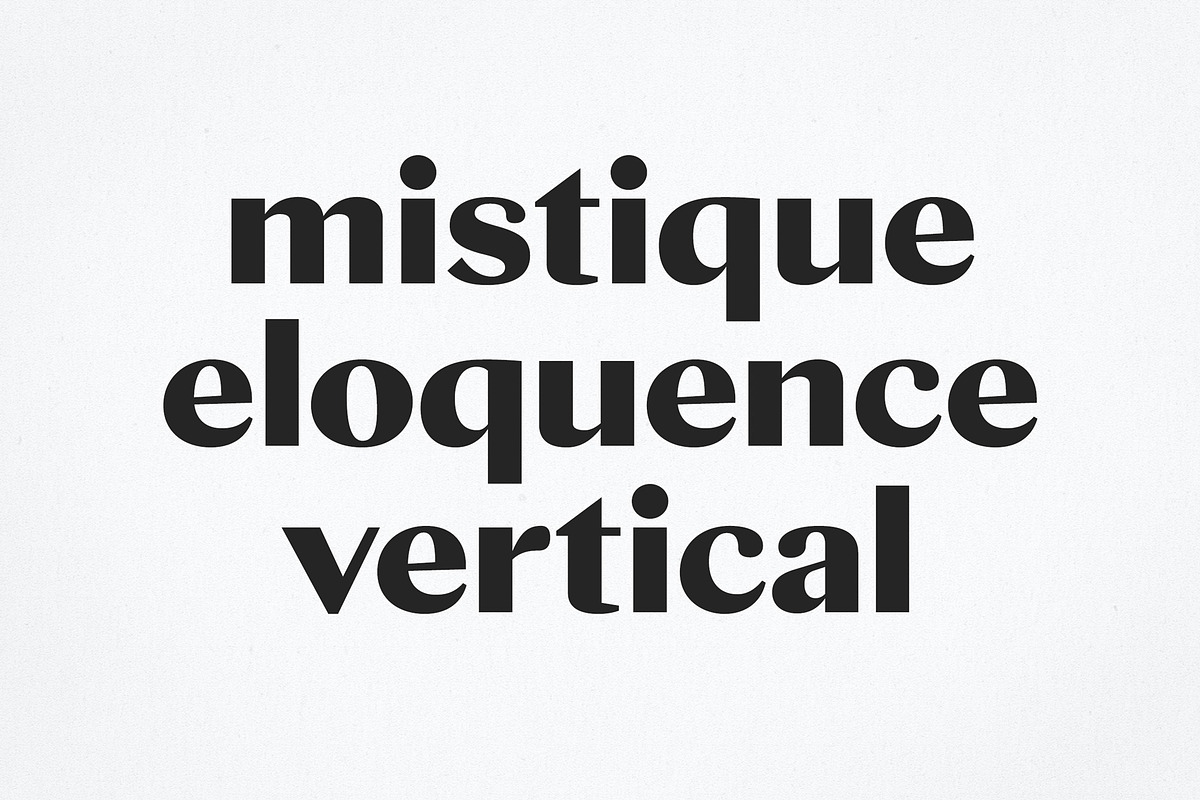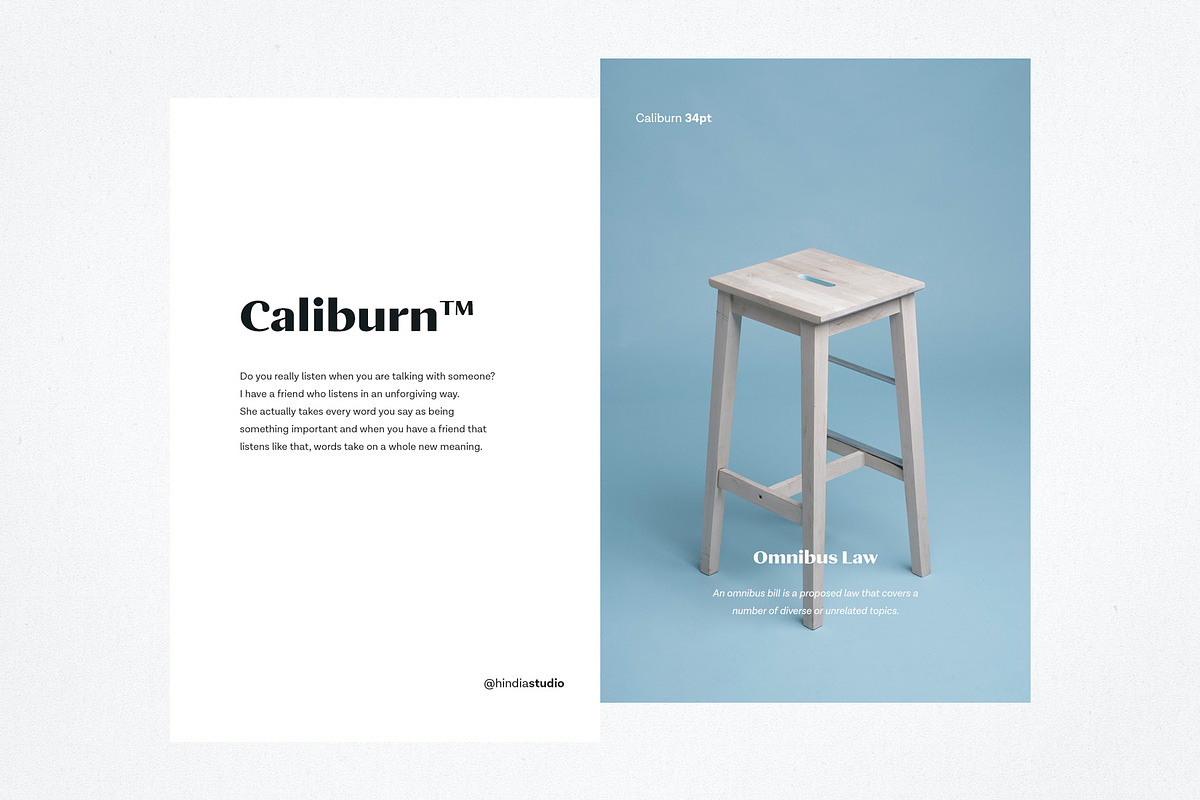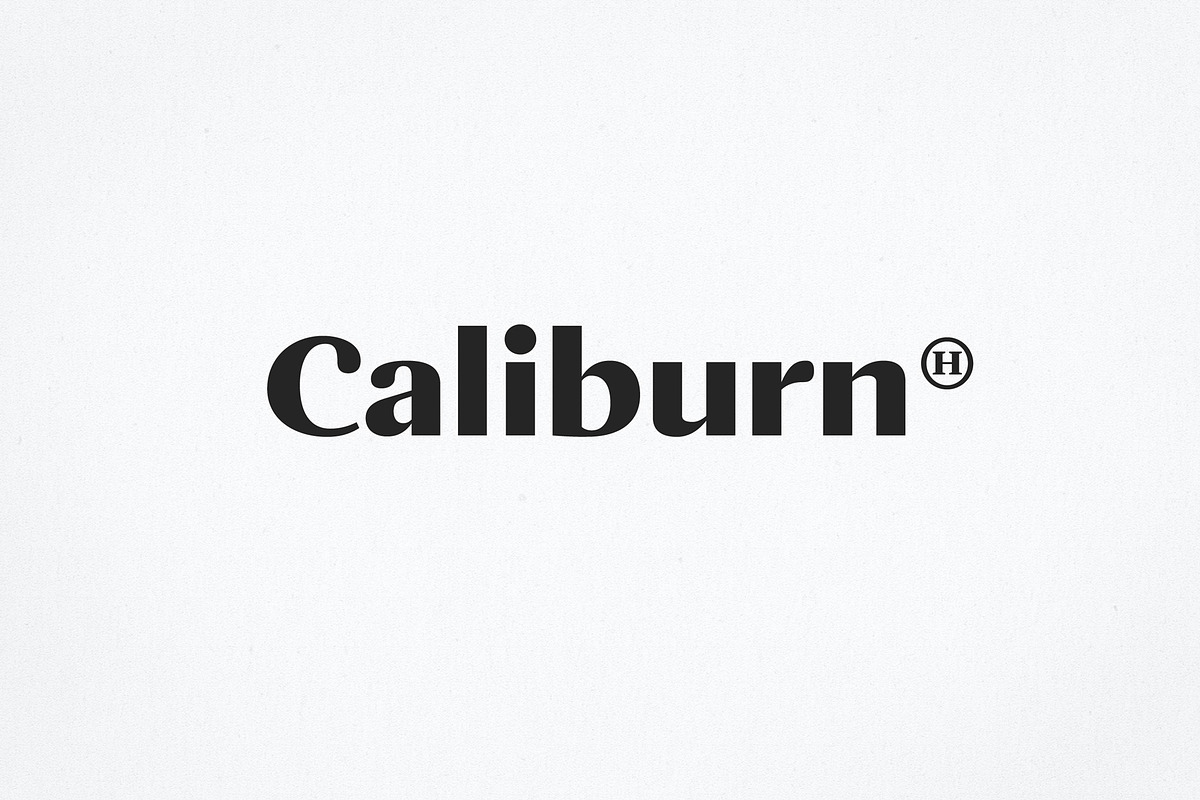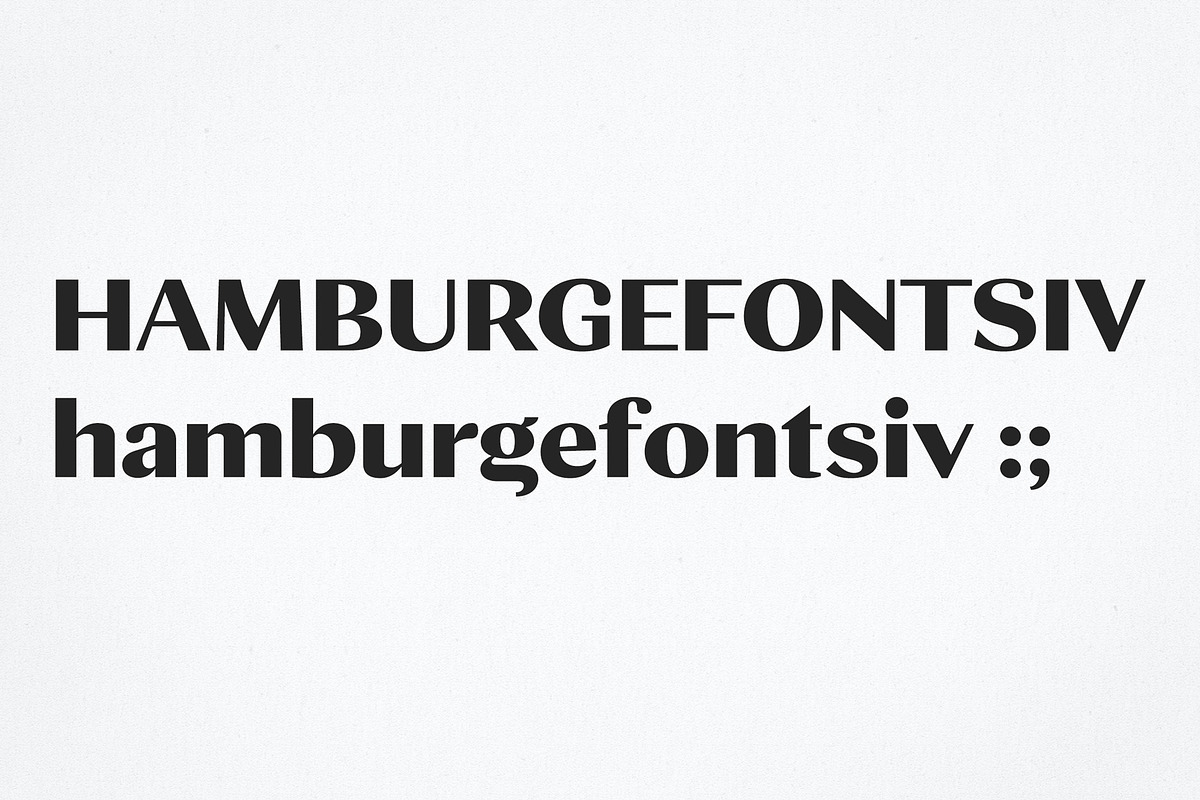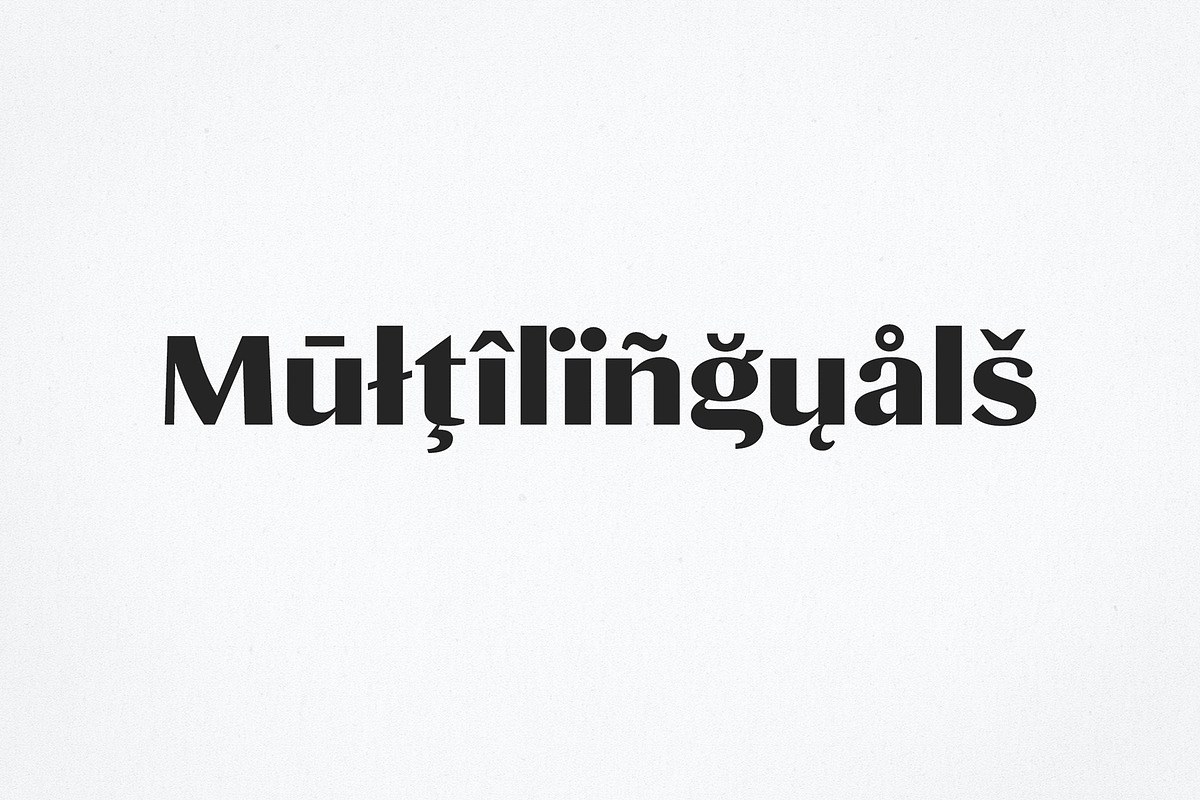
Caliburn - Vintage Sans
CALIBURN | Solid Vintage Sans Serif
It is bold, clean and elegant with a vintage flair. Specially designed for elegant-themed projects, perfectly suitable for creating simple, clean, lifestyle design such as logos, title, and magazine and more.